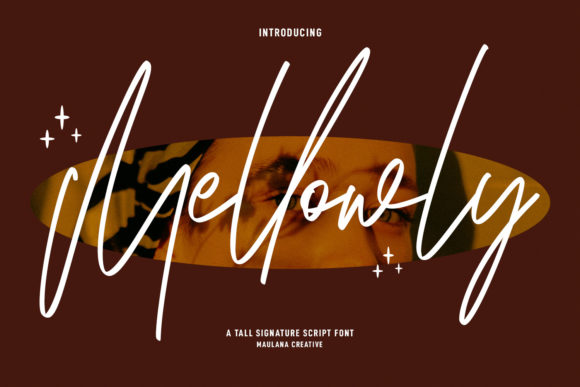
Immerse yourself in the enchanting world of Mellowly, an exquisite script font that captures the very essence of elegance and sophistication. Its strokes, bold and graceful, dance across the digital canvas like a symphony of ink, presenting your words as an art form. Inspired by the allure of handwritten signatures, Mellowly elevates every project with a touch of timeless beauty.
Unleash your creativity with this font that adds an air of distinction to your designs. With its captivating contrast between thick and thin lines, Mellowly lends a unique charm to invitations, branding, logos, and social media posts. Its tall, sweeping characters command attention, inviting your audience to immerse themselves in the story you're telling.
Mellowly isn't just a font; it's an experience that transcends the ordinary. It takes you on a journey of self-expression, allowing your words to resonate with profound emotion. Whether you're a seasoned designer or just starting out, Mellowly will transform your creations into masterpieces.
Soar beyond the mundane and embrace the allure of Mellowly. Let your imagination roam free as you craft designs that leave a lasting impression. Elevate your projects with this extraordinary font, and let Mellowly be your creative partner in achieving design excellence.